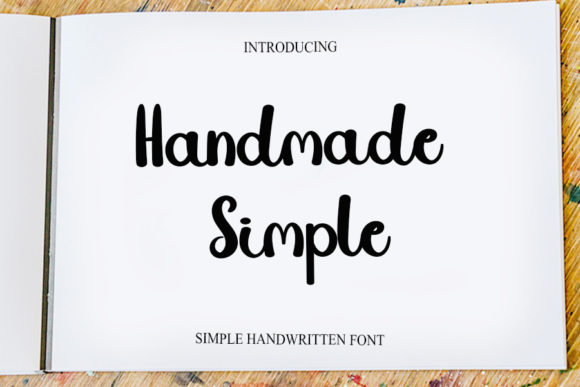
Introducing Handmade Simple Font: Elevate Your Designs with a Touch of Elegance
Are you on the lookout for a font that exudes a sense of casual sophistication and contemporary flair? Look no further than Handmade Simple, a beautifully crafted handwritten font that’s poised to become your new favorite. With its delicate balance of classy calligraphic influences and modern freshness, this font is sure to captivate designers and crafters alike.
The Charm of Handmade Simple
Handmade Simple is more than just a font – it’s an experience. Its casual handwritten style lends a personal touch to any project, making it perfect for designers who want to add a dash of warmth and personality to their work. Whether you’re creating wedding invitations, branding materials, or social media graphics, Handmade Simple is the ideal choice for those seeking a font that’s both elegant and approachable.
What Sets Handmade Simple Apart
So, what makes Handmade Simple stand out from the crowd? Here are just a few reasons why this font is sure to become a staple in your design toolkit:
- Classy Calligraphic Influences: Handmade Simple boasts a refined, calligraphic aesthetic that’s reminiscent of traditional handwritten scripts. Its flowing lines and delicate curves evoke a sense of luxury and sophistication.
- Contemporary and Fresh: Despite its classic influences, Handmade Simple feels remarkably modern and fresh. Its casual, laid-back vibe makes it perfect for designers who want to create work that’s both stylish and approachable.
- Versatility: Handmade Simple is incredibly versatile, making it suitable for a wide range of design applications. Use it for headings, body text, or even quotes – this font adapts seamlessly to any context.
Why Designers and Crafters Love Handmade Simple
Handmade Simple has already captured the hearts of designers and crafters around the world. Here are just a few reasons why:
- Easy to Read: Despite its elegant, cursive style, Handmade Simple is remarkably easy to read. This makes it perfect for body text, captions, and other applications where legibility is key.
- Highly Legible: Handmade Simple’s careful attention to letter spacing and kerning ensures that it’s highly legible, even at smaller font sizes.
- Unique Character: Handmade Simple boasts a unique character that’s all its own. Its subtle imperfections and quirks add a touch of personality to any design, making it instantly recognizable.
How to Use Handmade Simple in Your Designs
Ready to fall in love with Handmade Simple? Here are a few tips for incorporating this beautiful font into your designs:
- Pair it with Bold Fonts: Handmade Simple pairs beautifully with bold, sans-serif fonts. Try combining it with a font like Arial Black or Helvetica Bold for a striking contrast.
- Use it for Headings: Handmade Simple is perfect for headings, titles, and other applications where you want to make a statement. Its elegant, cursive style adds a touch of sophistication to any design.
- Experiment with Colors: Handmade Simple looks stunning in a range of colors, from soft pastels to rich jewel tones. Experiment with different hues to find the perfect match for your brand or design.
In conclusion, Handmade Simple is a truly exceptional font that’s sure to capture your heart. With its delicate balance of classy calligraphic influences and modern freshness, this font is the perfect choice for designers and crafters seeking a touch of elegance and sophistication. So why wait? Fall in love with Handmade Simple today and let it bring your projects to the highest levels!